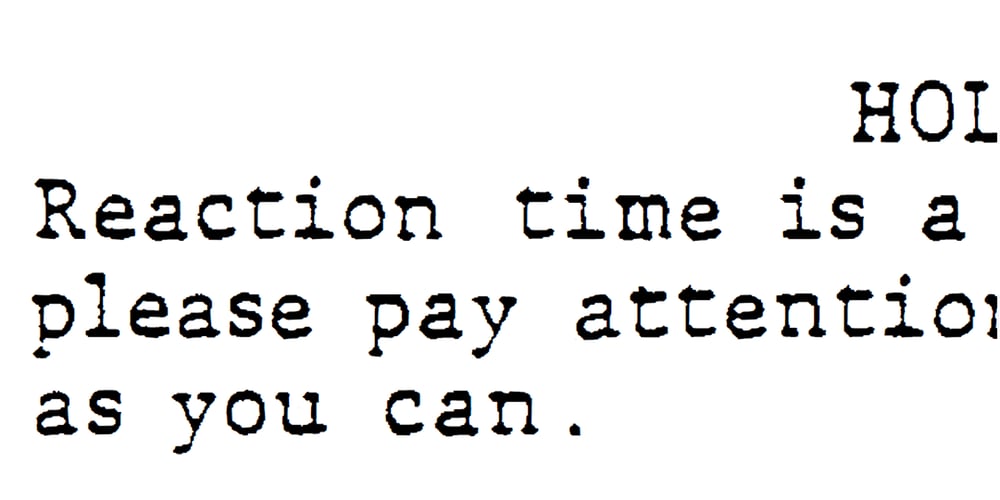
C1982 Blade Runner Screen Play
C1982 Blade Runner Screen Play font
C1982 Blade Runner Screen Play Font Family was designed by Gary Stephens and published by Antiochus. C1982 Blade Runner Screen Play contains 3 styles and family package options. This is the original 1982 Blade Runner screen play (by Hampton Fancher & David Peoples) typeface, produced by a now defunct, obsolete (and unknown) electronic or non-electronic typewriter circa 1980s.The action of this defunct typewriter, — which could be by a burn mechanism, is faded, and adds to the overall Sci-Fi feel.A pdf example of the style may be found here :https://www.behance.net/gallery/221614387/1982-Blade-Runner-Screen-Play-Font